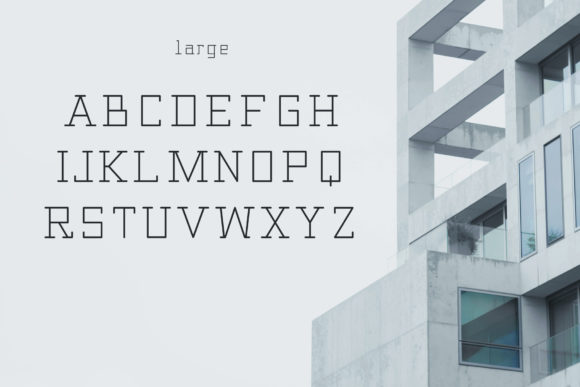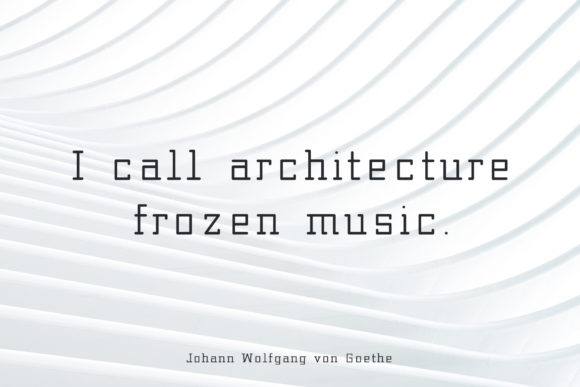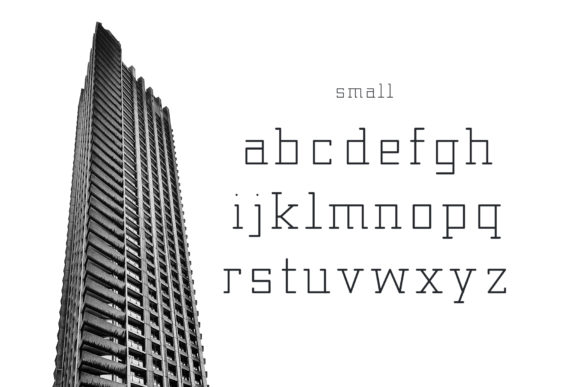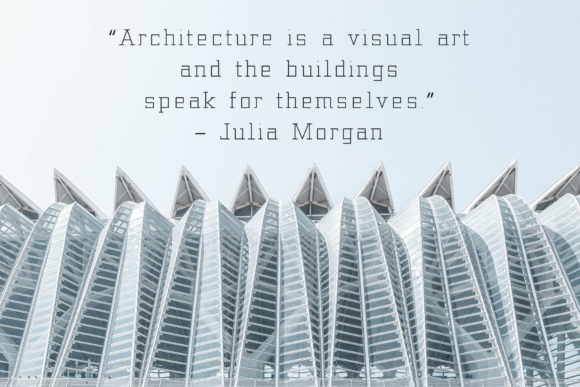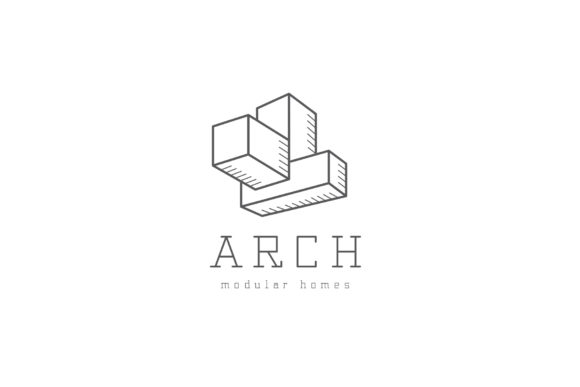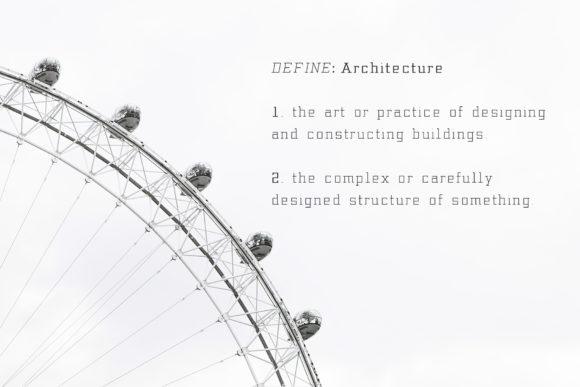
Introducing Architect Font: A Fun Serif Font for Impactful Designs
In the world of typography, fonts play a crucial role in conveying messages, evoking emotions, and creating visual identities. For designers and crafters, finding the right font can make all the difference in bringing their projects to life. If you’re on the hunt for a unique and versatile font, look no further than Architect Font. Inspired by the early era of personal computers, Architect is a fun serif font that’s perfect for creating impactful headlines, logos, layouts, and content.
The Inspiration Behind Architect Font
Architect Font draws inspiration from the nostalgic era of personal computers, paying homage to the retro aesthetic of old-school computer graphics. The font’s design is reminiscent of the early days of computing, with clean lines, classic serifs, and a dash of nostalgia. This distinctive style makes Architect Font a standout choice for designers looking to add a touch of vintage flair to their projects.
Key Features of Architect Font
So, what makes Architect Font so special? Here are some of its key features:
- Fun Serif Design: Architect Font boasts a playful serif design that’s sure to grab attention. The font’s serifs are carefully crafted to add a touch of whimsy and personality to your text.
- Impactful Headlines: With its bold and distinctive design, Architect Font is perfect for creating impactful headlines that demand attention.
- Versatile Pairing Options: Architect Font pairs beautifully with many fonts, making it easy to find a complementary font to match your project’s style.
- Wide Range of Applications: Whether you’re working on a logo, layout, or content, Architect Font is a versatile choice that can adapt to various design needs.
Why Choose Architect Font?
With so many fonts available, why should you choose Architect Font for your next project? Here are some compelling reasons:
- Unique Style: Architect Font offers a distinctive style that’s sure to set your project apart from the crowd.
- Ease of Use: The font is easy to read and works well in various contexts, from digital screens to print materials.
- Customization Options: Architect Font can be customized to fit your project’s specific needs, allowing you to experiment with different styles and effects.
Tips for Using Architect Font
To get the most out of Architect Font, here are some tips to keep in mind:
- Experiment with Font Sizes: Architect Font works well in various font sizes, from large headlines to smaller body text.
- Pair with Complementary Fonts: Try pairing Architect Font with complementary fonts to create visually appealing combinations.
- Play with Colors and Textures: Don’t be afraid to experiment with different colors and textures to add depth and interest to your design.
In conclusion, Architect Font is a fun serif font that’s perfect for designers and crafters looking to add a touch of nostalgia and personality to their projects. With its unique style, versatile pairing options, and ease of use, Architect Font is an excellent choice for creating impactful headlines, logos, layouts, and content. So why not give it a try and see how Architect Font can elevate your designs to the next level?